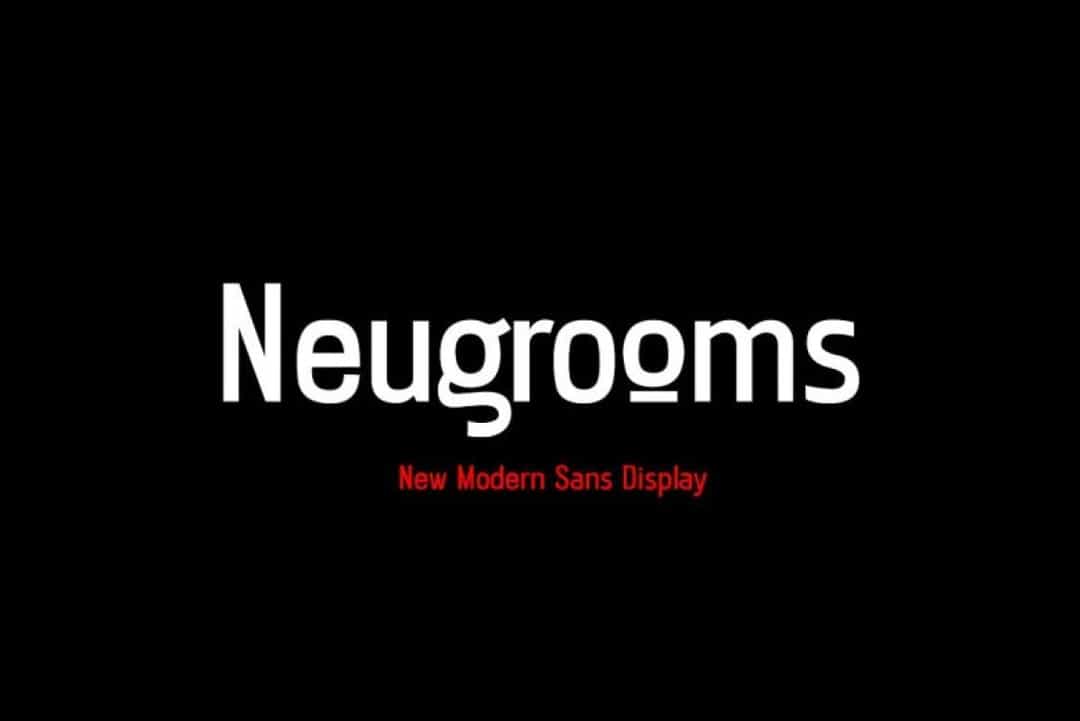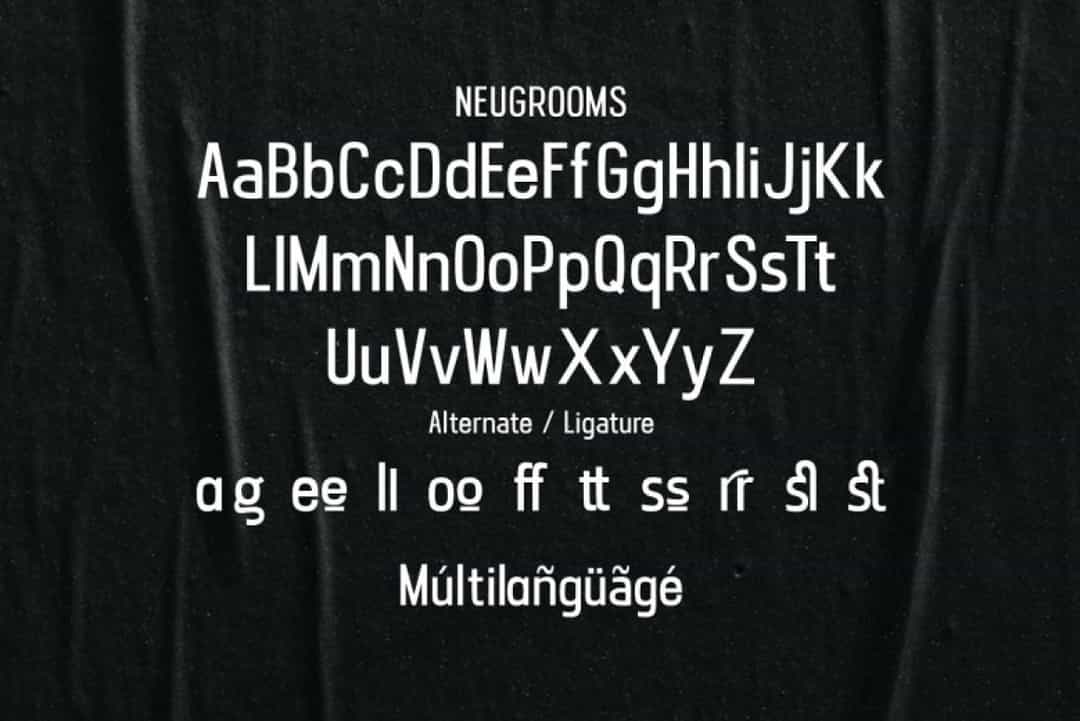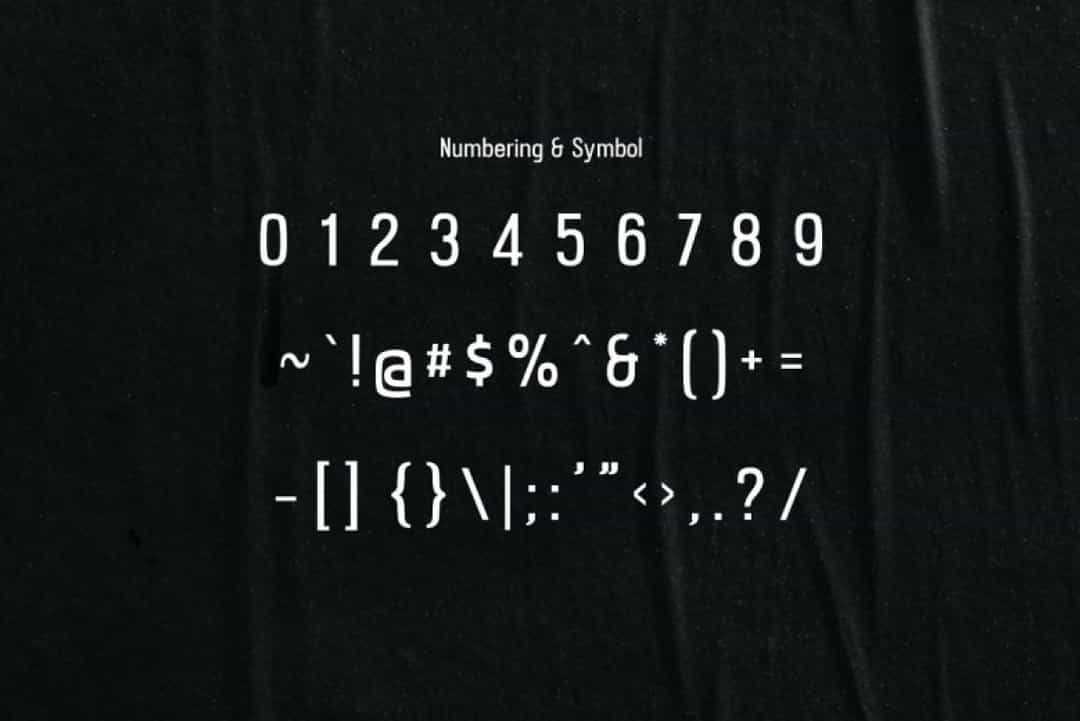
“Neugrooms,” is now available – it is a modern sans serif display typeface designed with a contemporary style that makes an impactful statement. Neugrooms was made to be multipurpose; you can use this font for anything from headlines, taglines and bodies in content creation projects through logo design to combining sleek crisp lines with an elegant flourish.